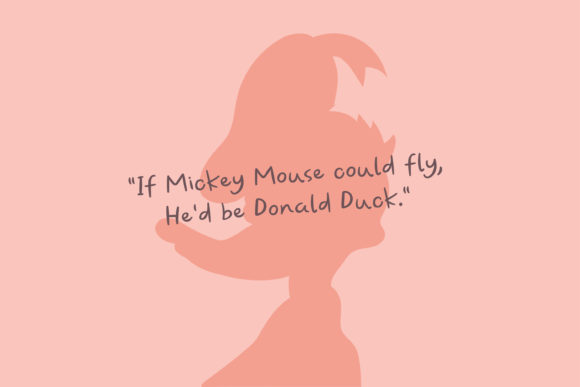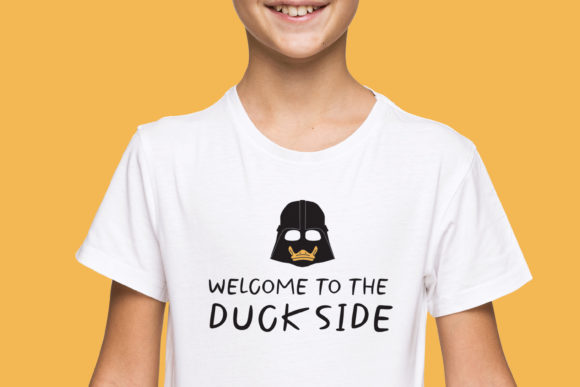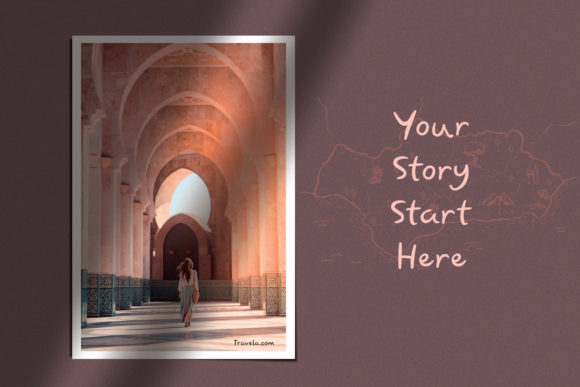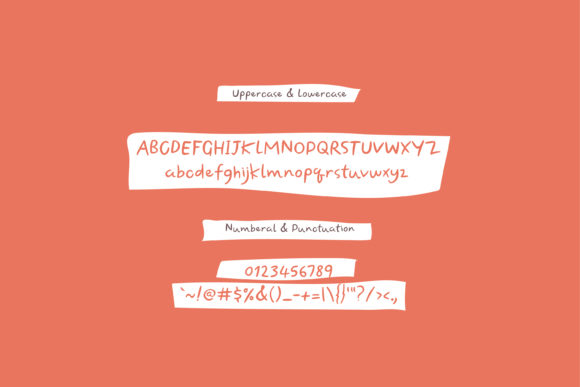
Introduction to Duck Step Font
Duck Step is a sweet and natural handwritten font.
Fun and fresh, this cute font will make each of your children or school projects stand out .
Key Features of Duck Step Font
Why Choose Duck Step Font?
Duck Step Font offers exceptional quality and versatility, making it a valuable addition to your design toolkit. Whether you’re creating for personal projects or commercial use, Duck Step Font delivers professional results.